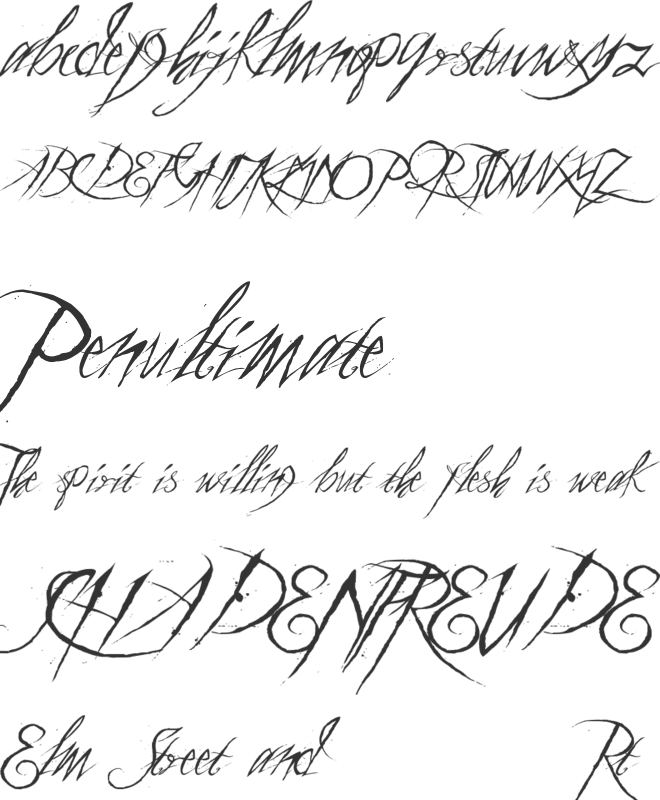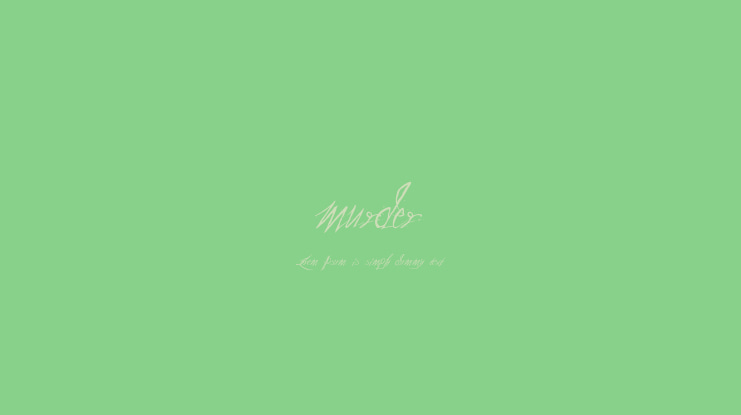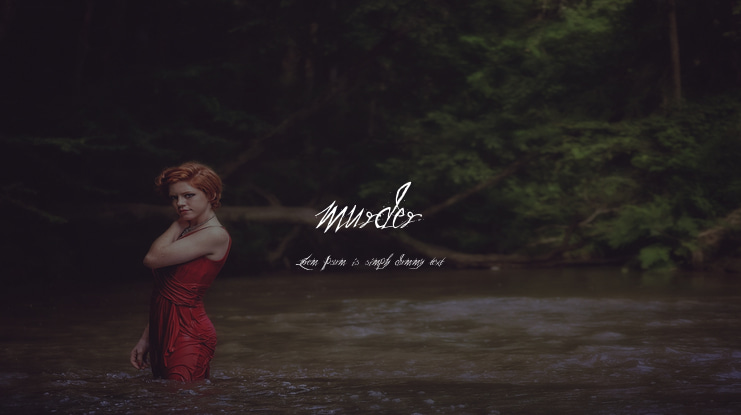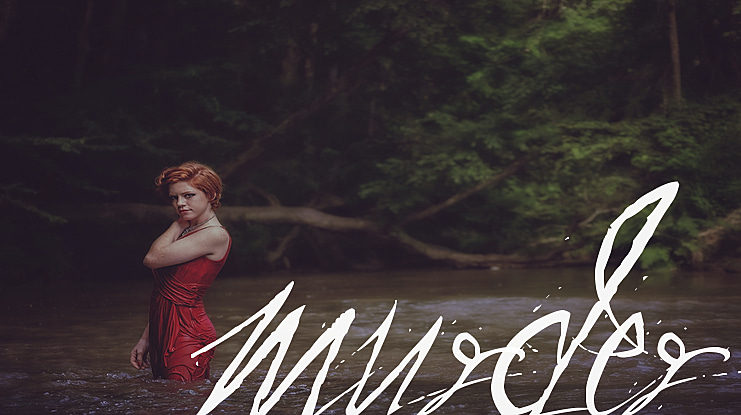
murder Font
Murder Font is perfect for fashion magazines, product watermarks, branding projects, wedding designs, social media posts, advertisements, product designs, label product, logo product, photography, invitation, card business and any projects that need handwriting taste.